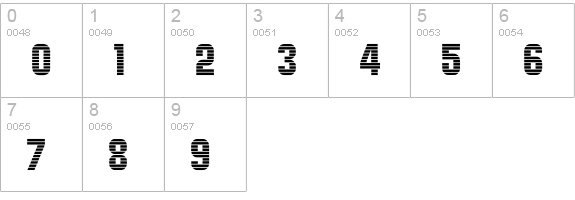
Maximus Regular Font Details
Maximus Regular is the standard, neutral variant in the Maximus typeface family \xE2\x80\x94 well suited to general body text, paragraphs, and standard typographic work.